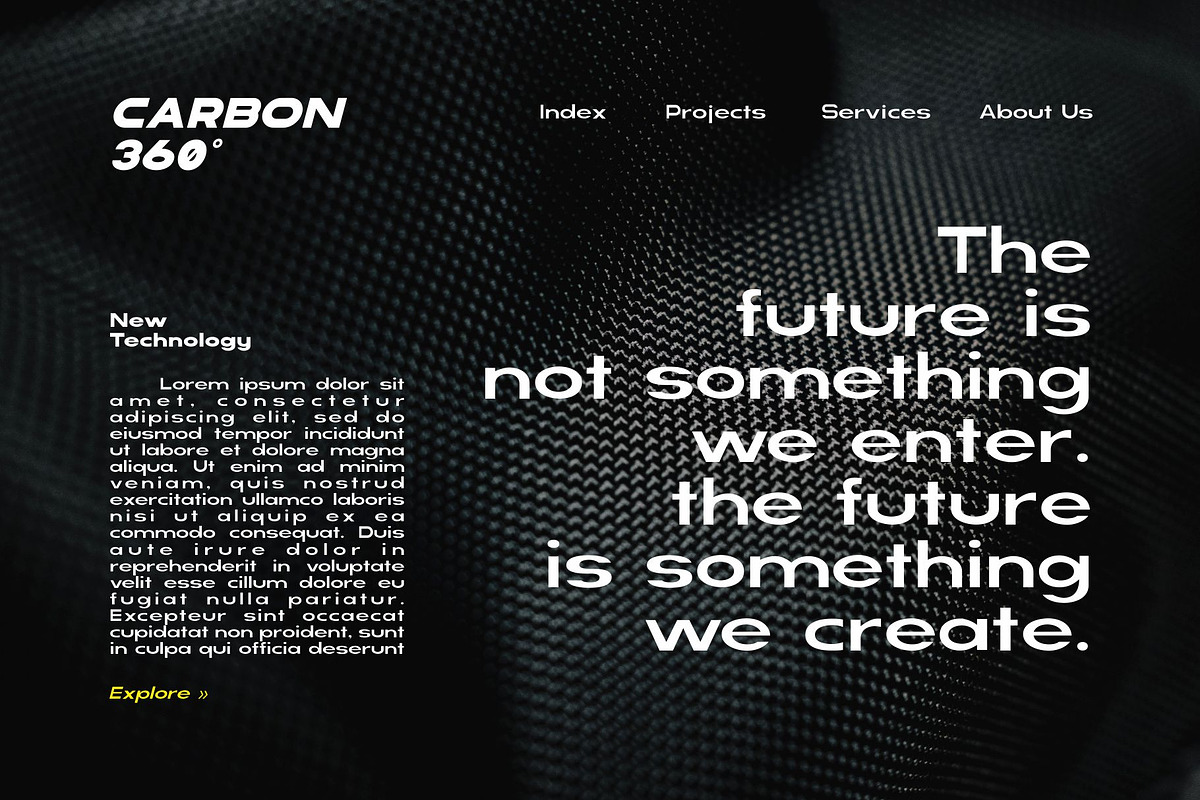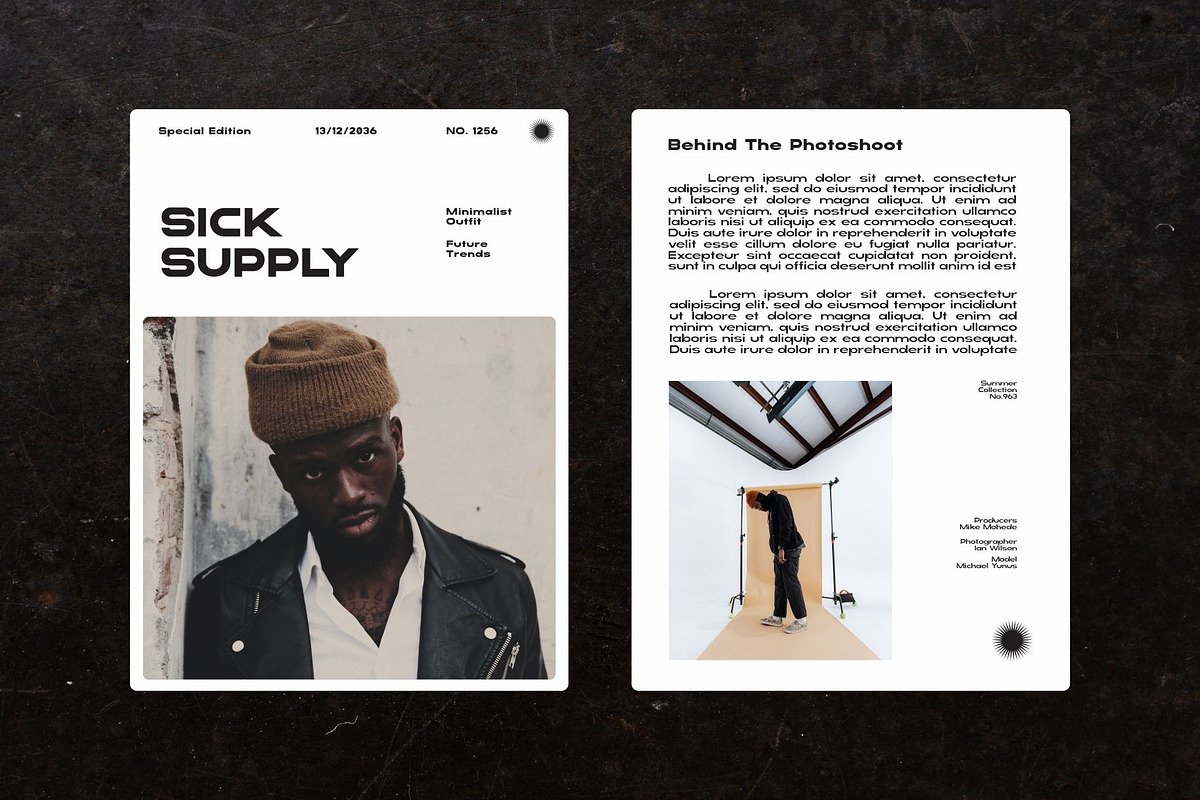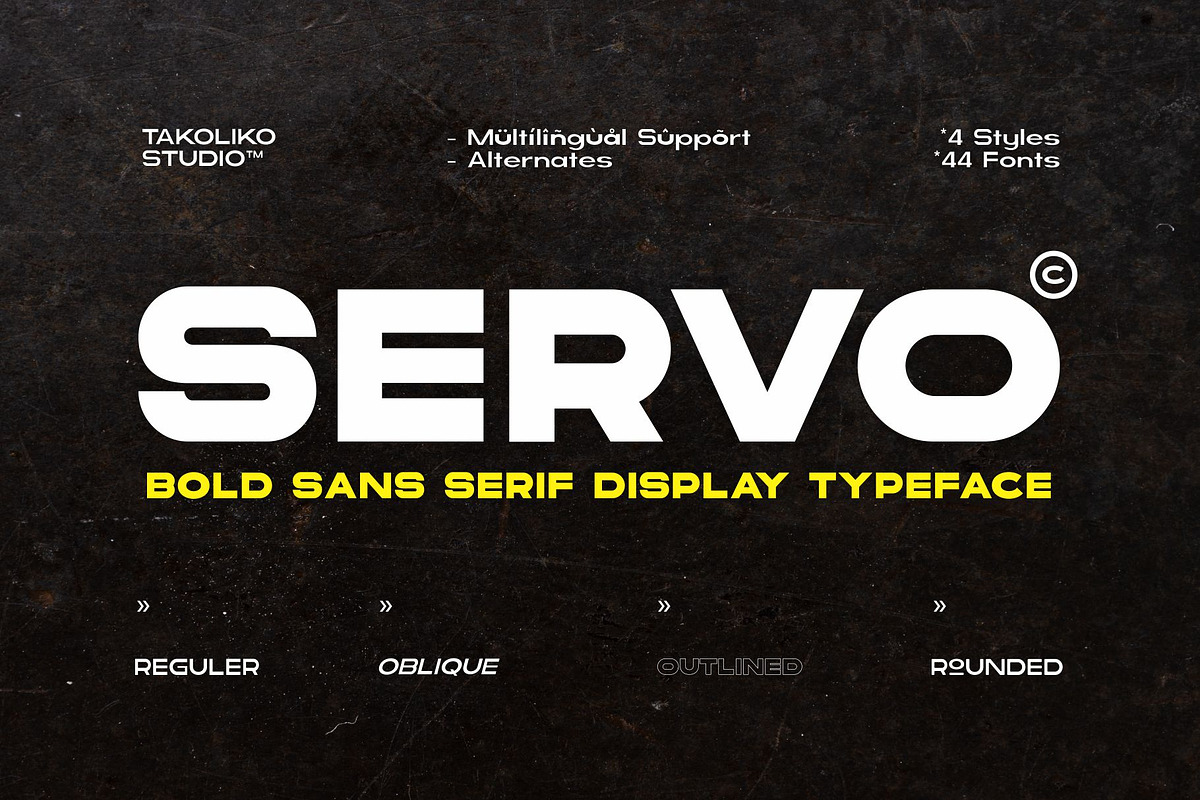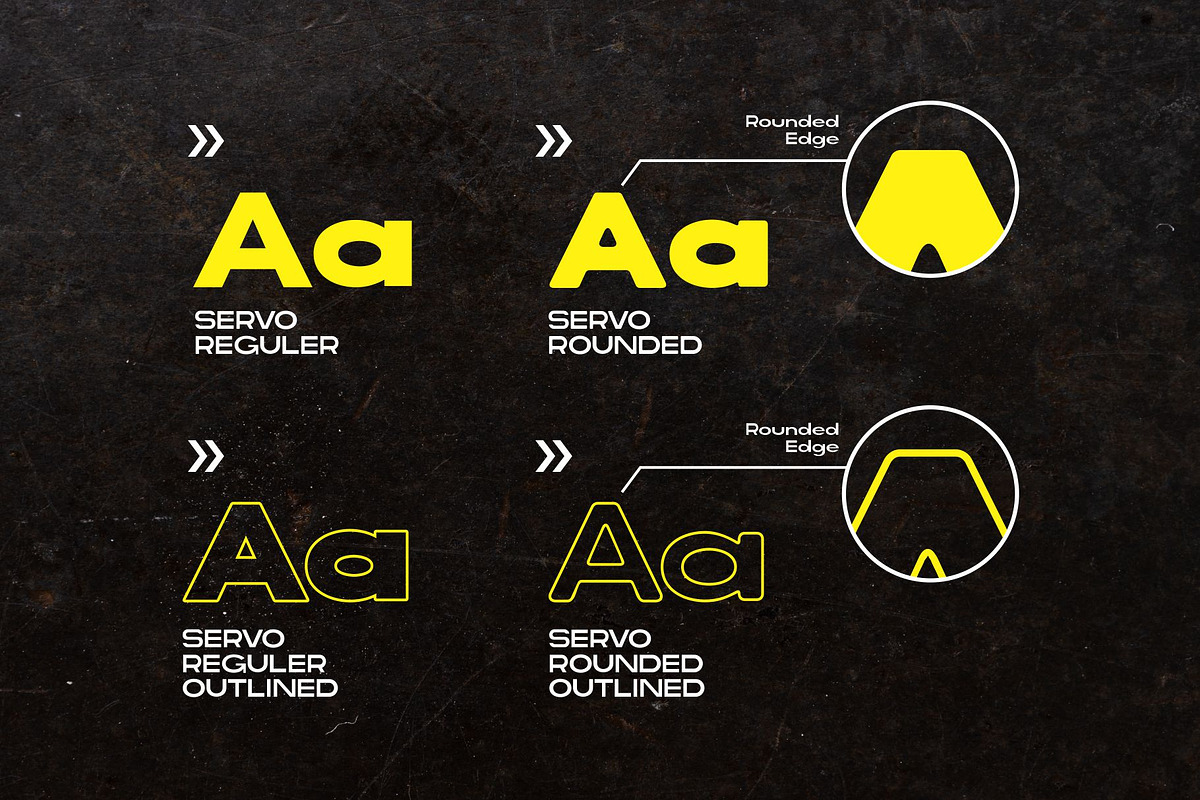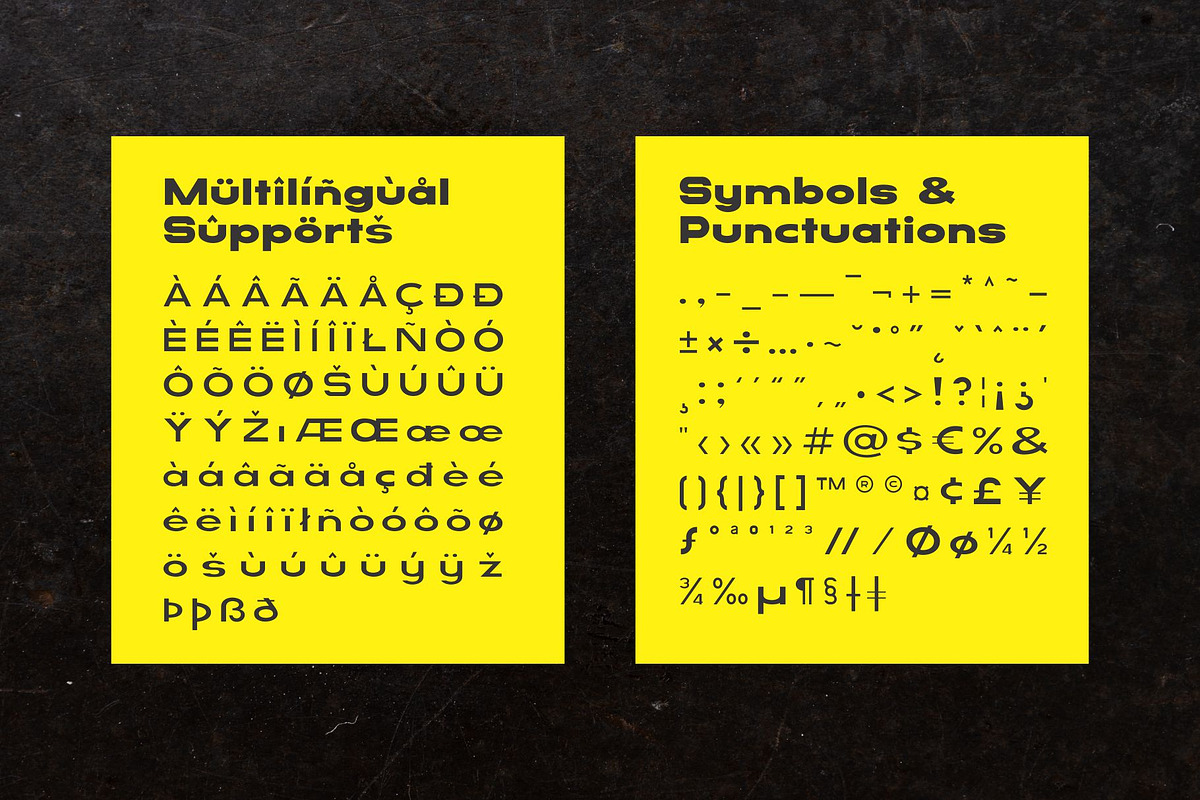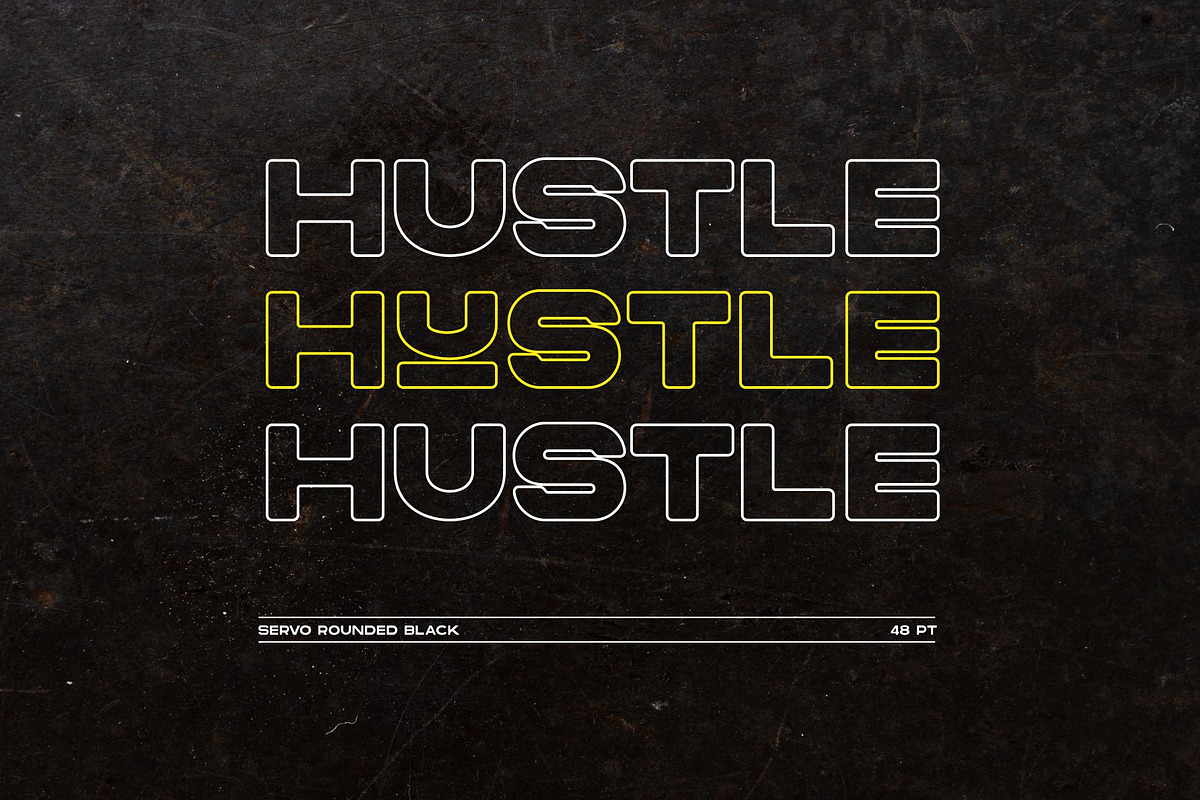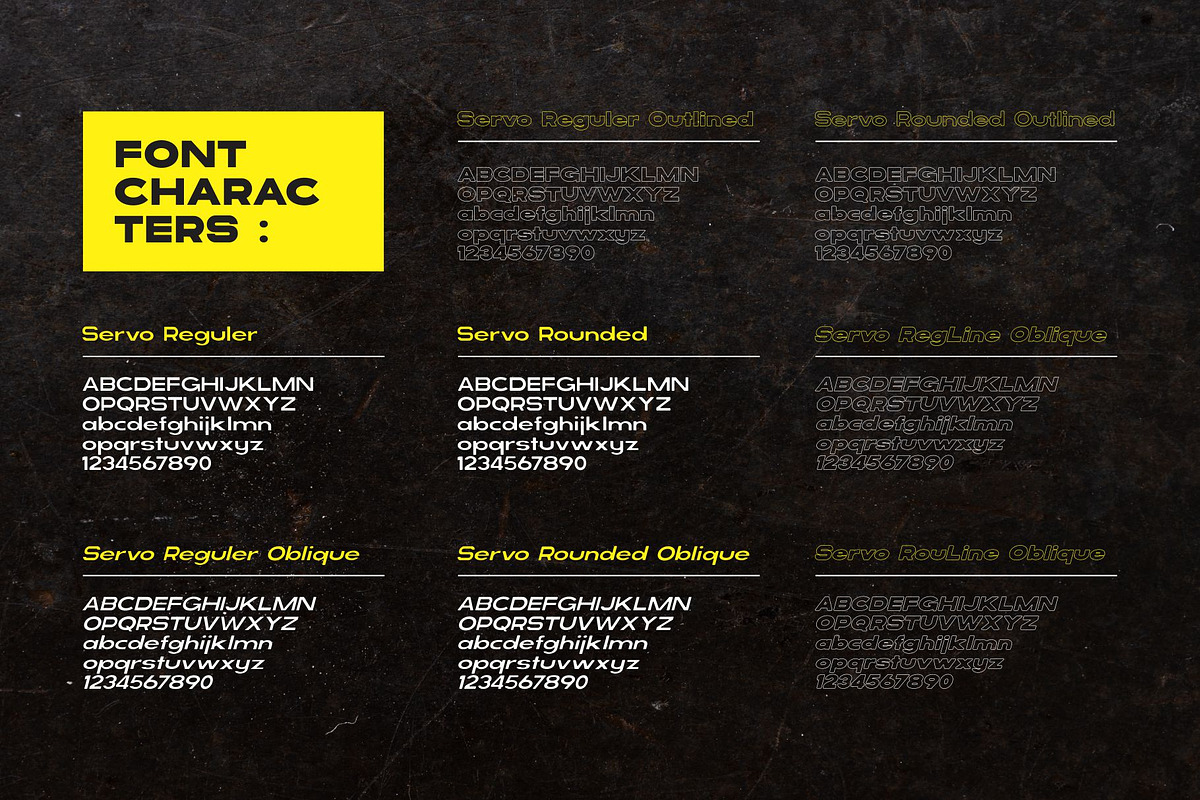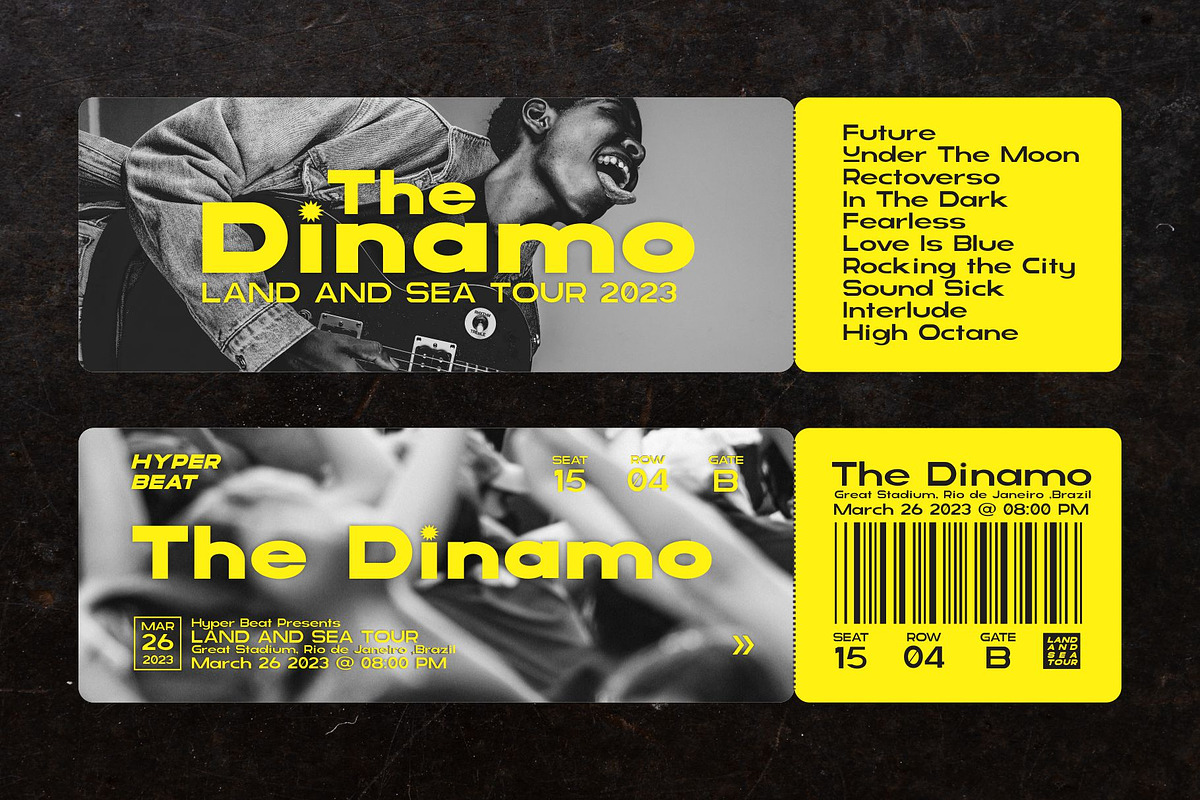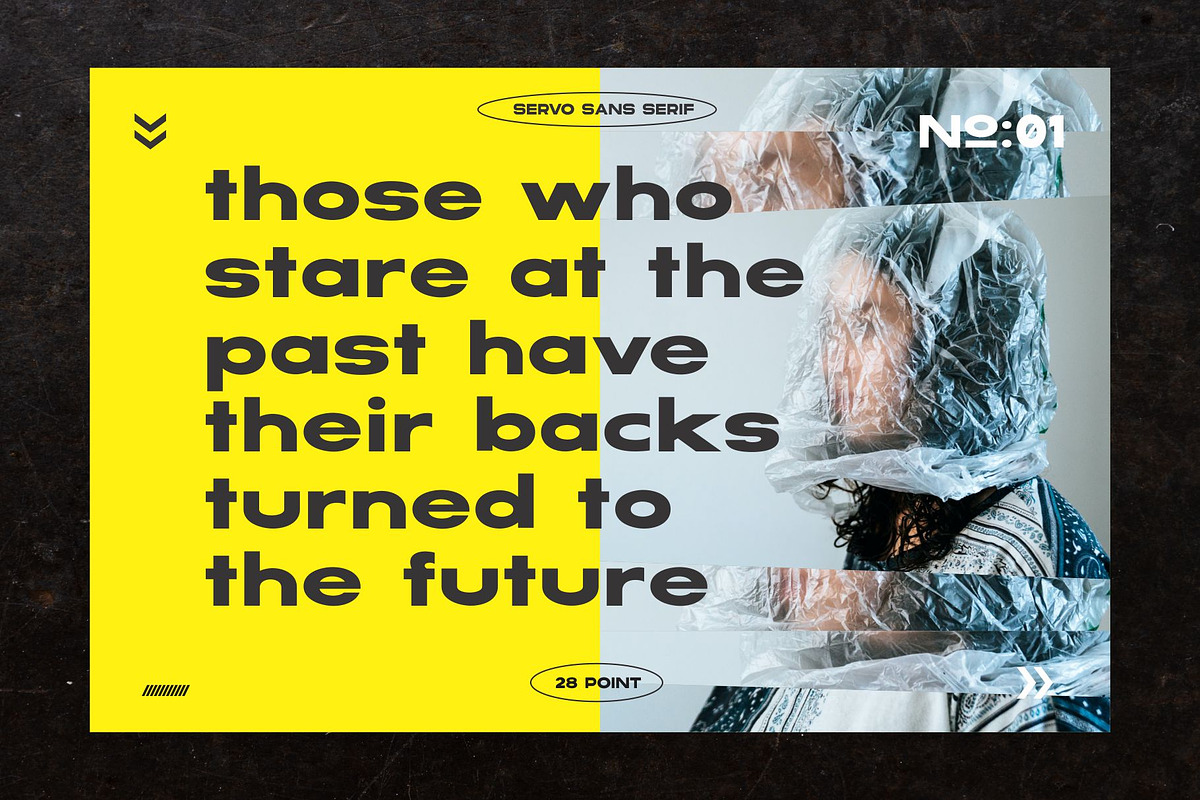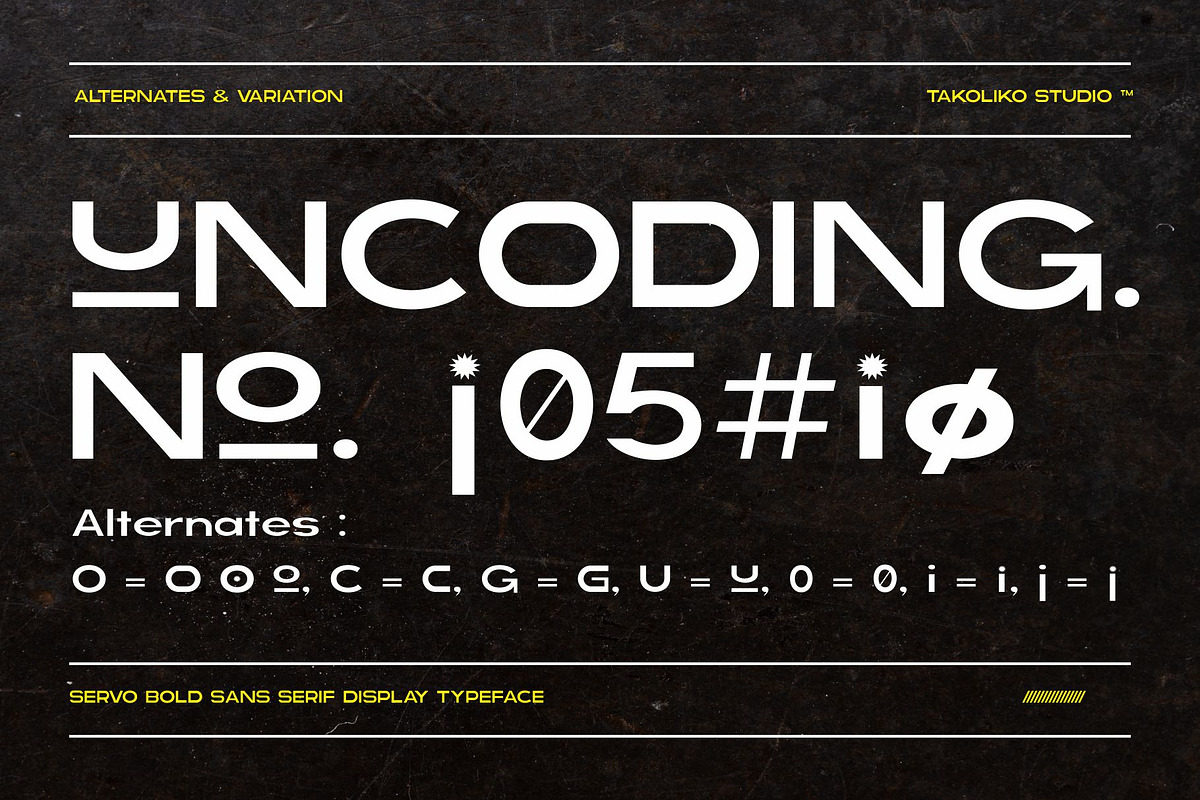
Servo - Bold Sans Serif
Servo is a modern sans serif display typeface designed by Takoliko Studio. It comes with reguler and rounded style, also outlined style for a different feel. Its bold characteristics makes it suitable for attention grabbing design projects such as headlines, posters, social media displays and editorials.
- Uppercase and lowercase letters
- 9 font weights with oblique version in each weight
- 2 styles: regular & rounded
- Outlined version in regular and black weight
- Symbol & punctuation
- Alternate & variation